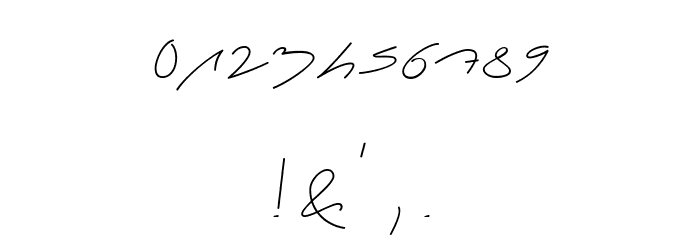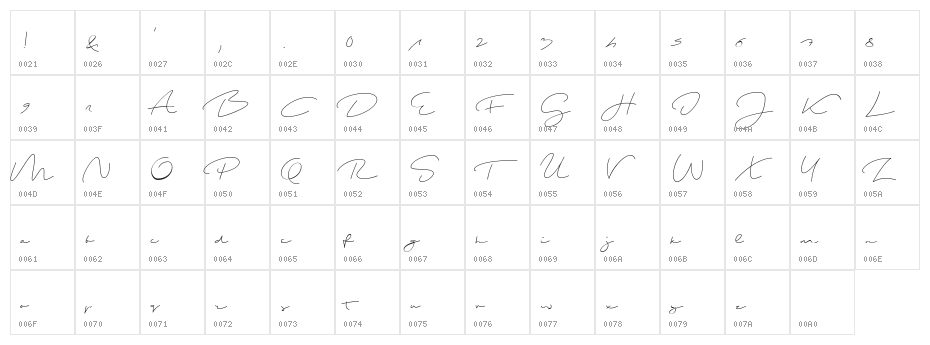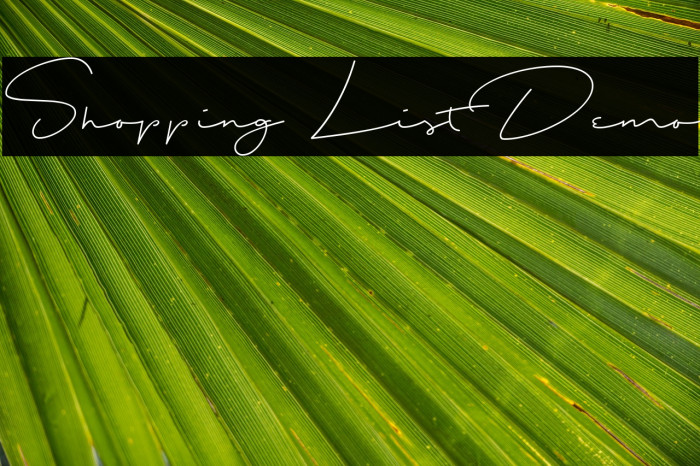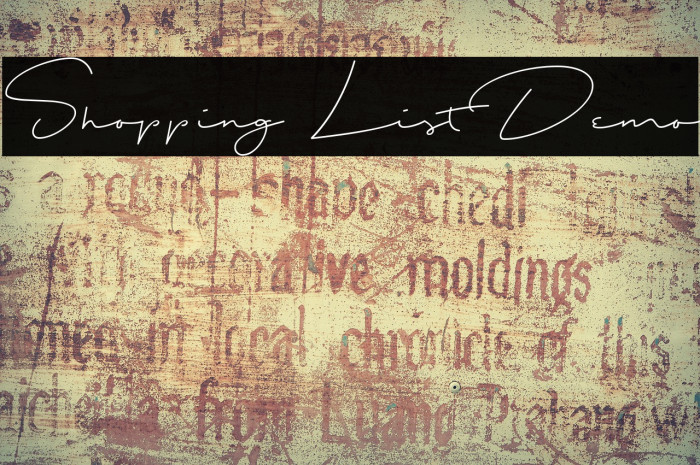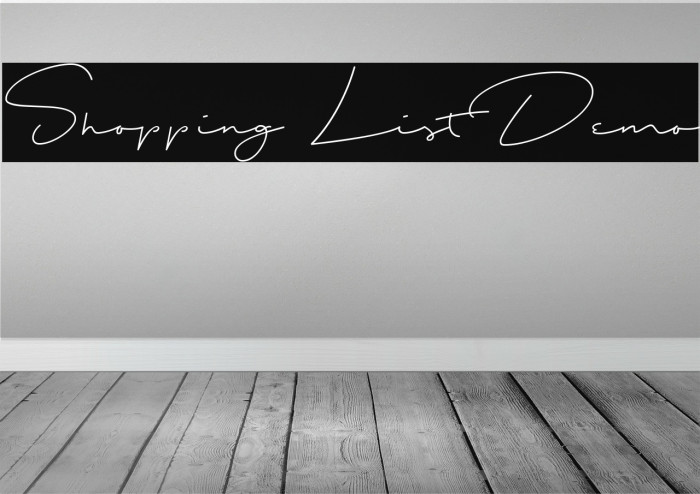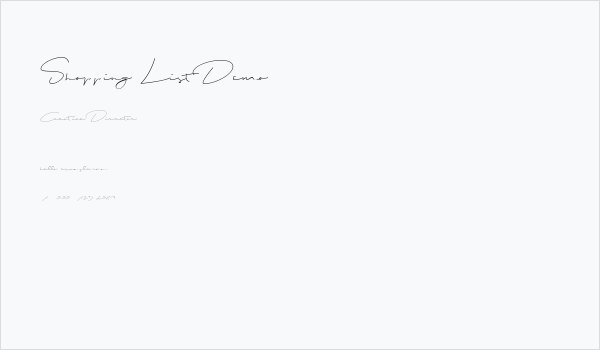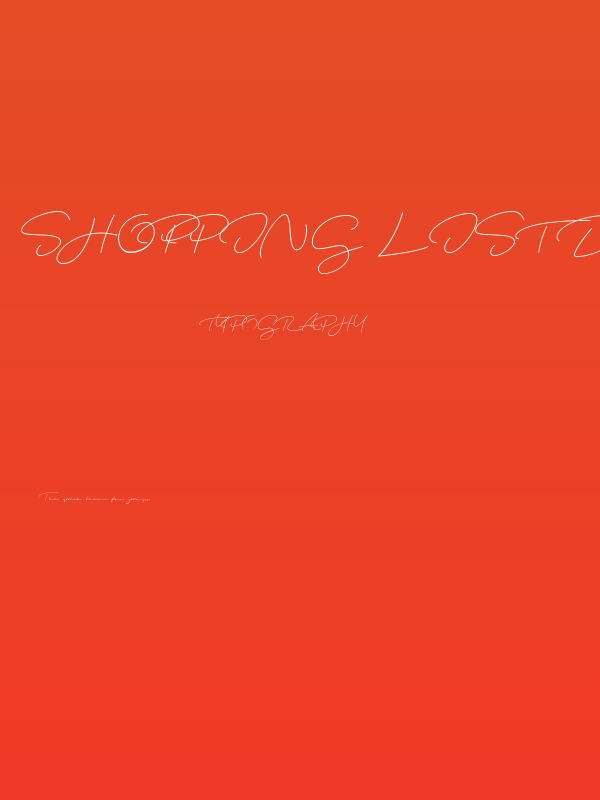
Shopping List Demo Font
Shopping List Demo Description
This font features a flowing, cursive style that mimics natural handwriting. The letters are connected in a fluid manner, giving it an elegant and personal touch. The uppercase letters have a slightly larger and more pronounced appearance, while the lowercase letters maintain a consistent, smooth flow. The numbers and special characters follow the same cursive style, ensuring uniformity across all elements. The strokes are thin and delicate, providing a light and airy feel. This font is ideal for projects that require a personal, handwritten touch, such as invitations, greeting cards, or personal branding materials.
| Overall Style | Elegant, Personal |
| Proposed Projects | Ideal for invitations, greeting cards, personal branding, and any project needing a handwritten touch. |